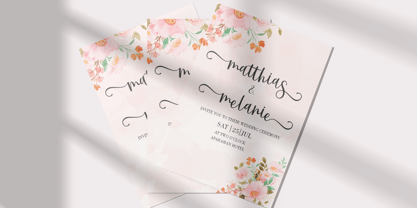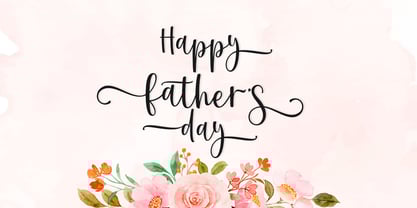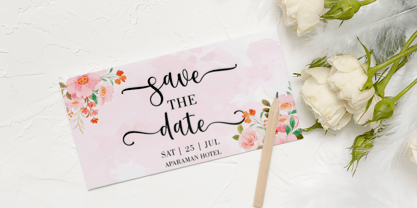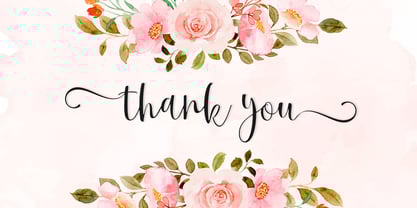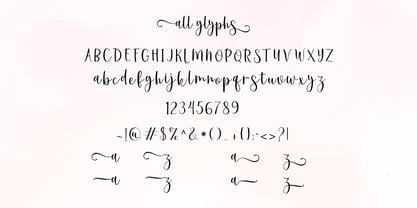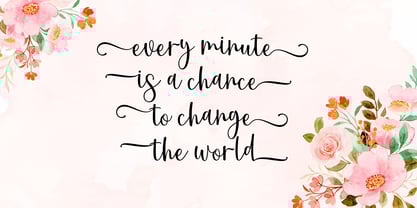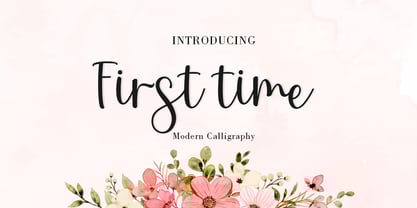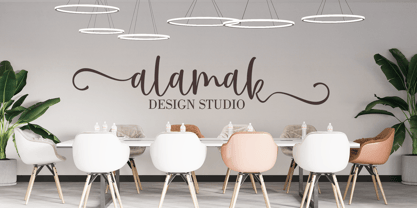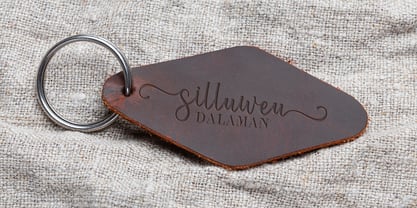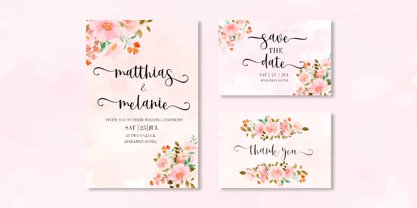
First time
The First time Font Family was designed by Kamaruddin Kamaruddin, Amar Lettering and published by Amarlettering. First time contains 1 styles. More about this family
Font First time is a delicate and elegant script font with a modern and sophisticated appearance. Its thin letterforms feature fluid strokes and subtle curves, creating a graceful and refined feel. The font is perfect for designs that require a sense of elegance and sophistication, such as wedding invitations, branding, or editorial design.